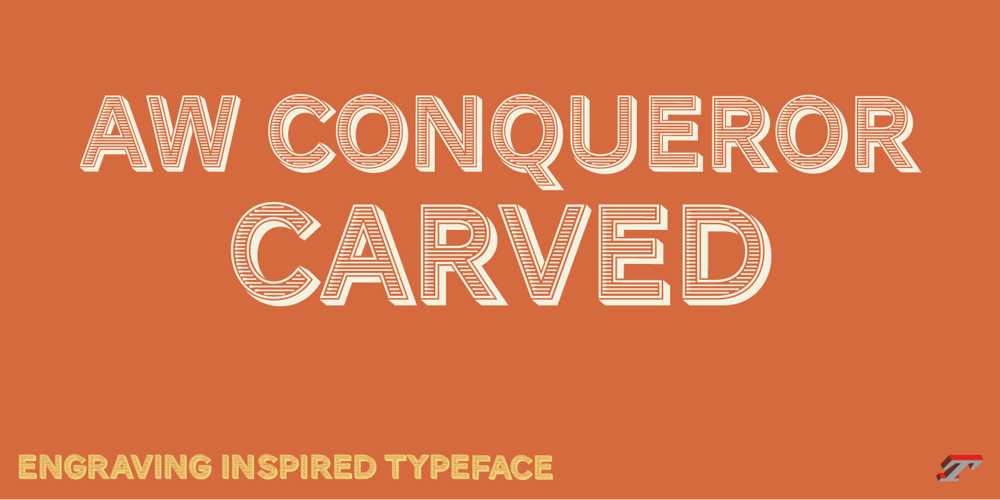
AW Conqueror Carved Std Regular Font Family was designed by Jean François Porchez and published by Typofonderie. AW Conqueror Carved Std Regular contains 1 styles and family package options. Engraving inspired typefaceThe AW Conqueror Carved encapsulates perfectly the lettering styles in fashion during the 19th century quite often in the frontispieces of books. It wasn’t rare to see these kinds of typefaces, with their variations in depth and relief effects, adorning boxes and other forms of packaging of the time.AW Conqueror superfamilyAW Conqueror Didot is part of a larger family, who include 4 others subfamilies with great potential: They’re but based on same structure, with some connection between them (width for example), to offer a great & easy titling toolbox to any designers, from skilful to beginner. Each of the members try their best to be different from the others because of their features. They should work harmoniously in contrast.Club des directeurs artistiques Prix 2010European Design Awards 2011